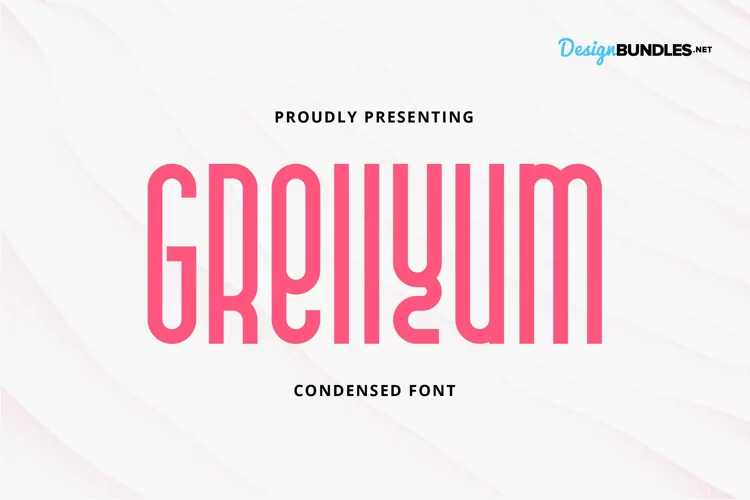
Grellyum - Condensed Font display It matches applies in some designs such as the logotype, brand, packaging, quotes, poster, t-shirt, invitation and more custom design. The features uppercase, lowercase, numeral, punctuation & symbol, multilingual support.
Grellyum